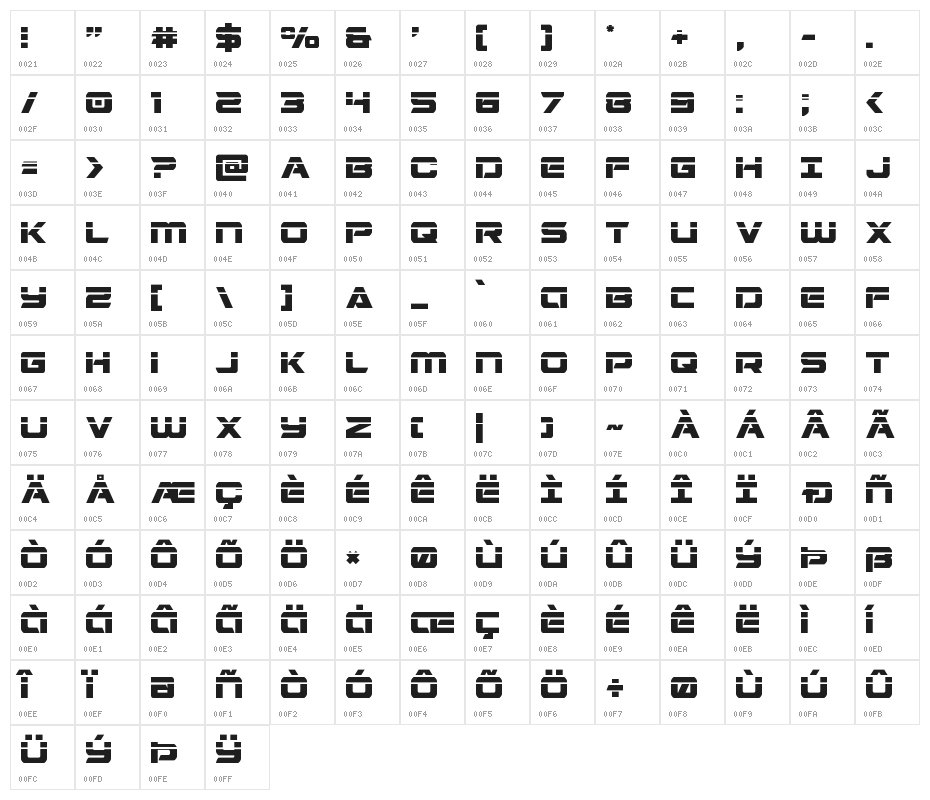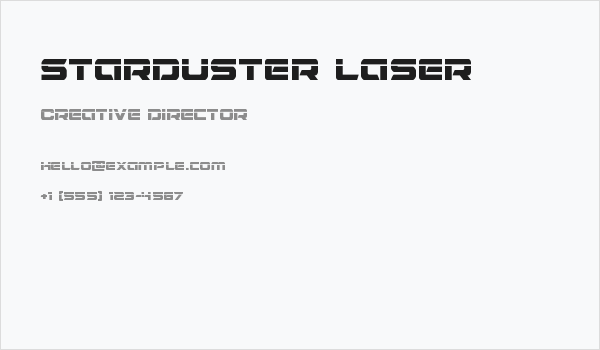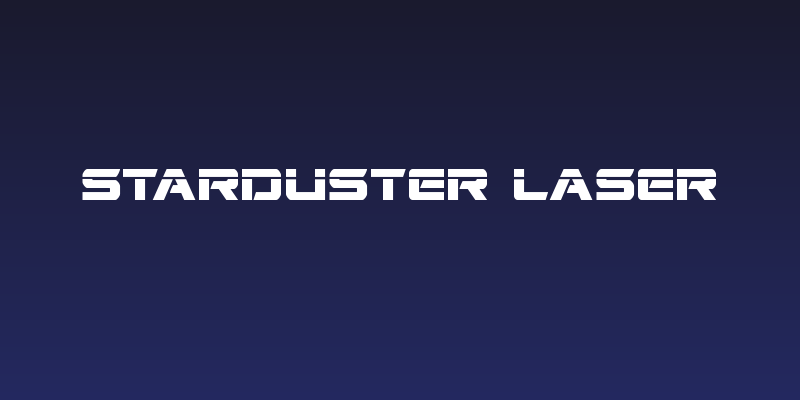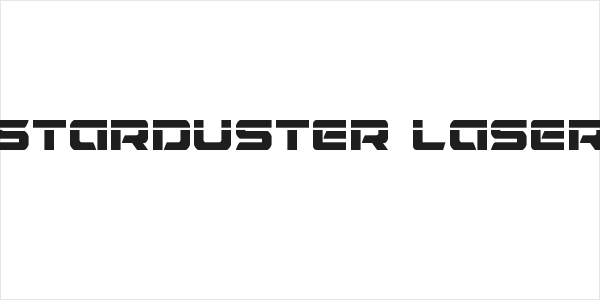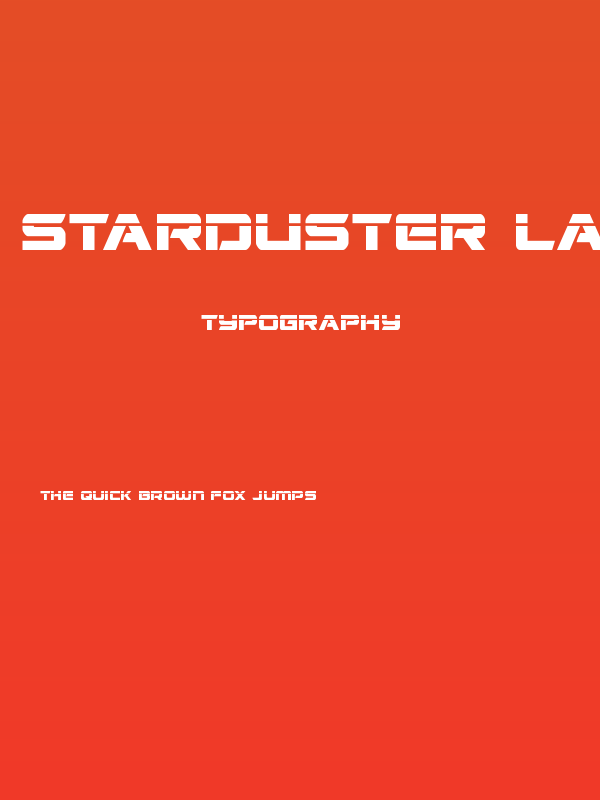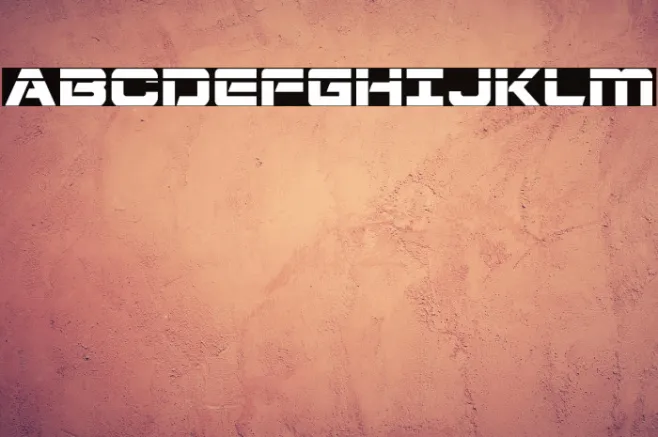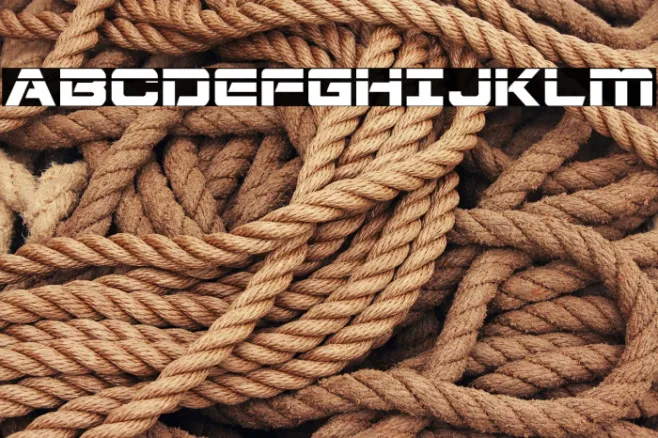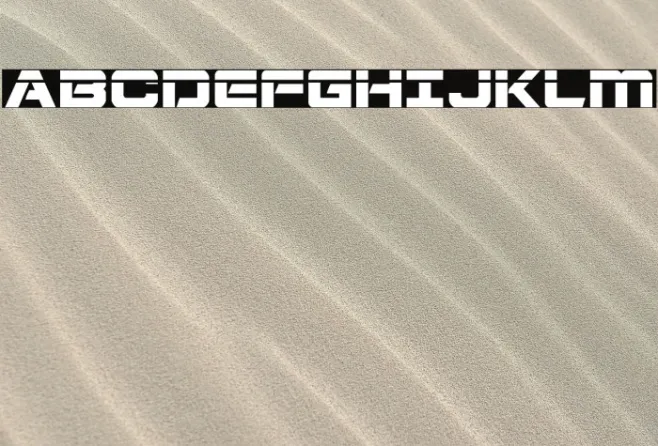
Starduster Laser Font
Starduster Laser Description
This font features a futuristic and bold design, characterized by its geometric and angular shapes. The letters are constructed with sharp edges and a blocky appearance, giving it a distinct sci-fi aesthetic. The uppercase and lowercase letters maintain a consistent style, with a uniform height and width that contributes to its cohesive look. The numerals and special characters are designed to match the overall theme, ensuring a seamless integration across different uses. The font's unique style makes it ideal for projects that require a modern and technological feel.
| Proposed Projects | Ideal for sci-fi themed projects, technology branding, video game titles, and futuristic posters. |